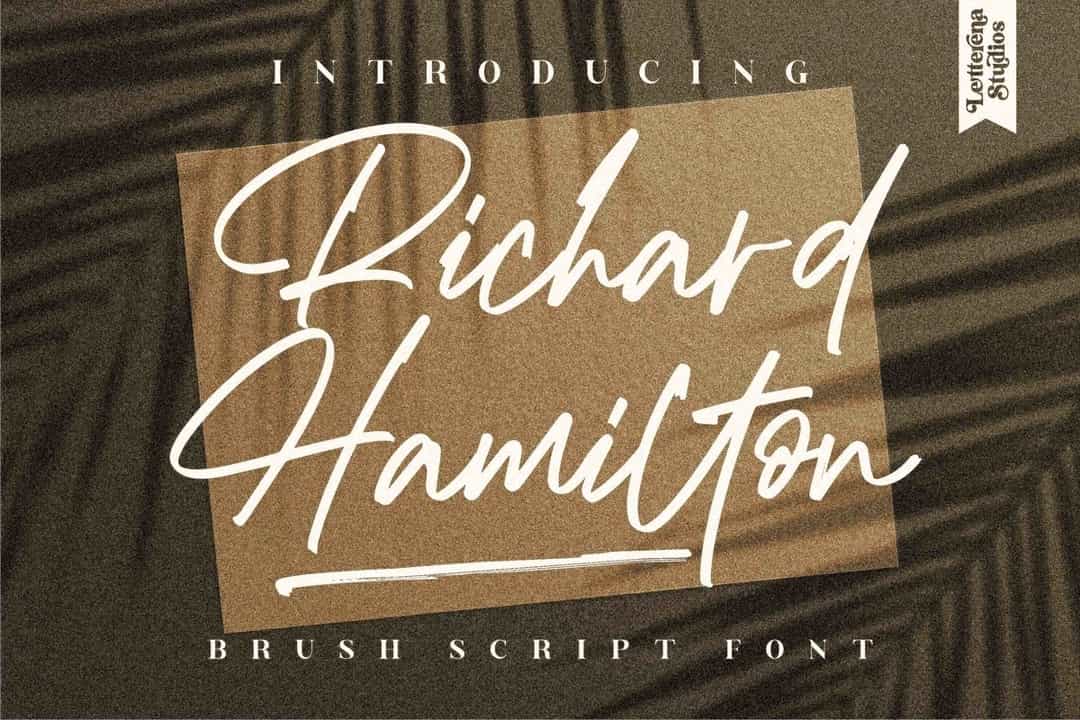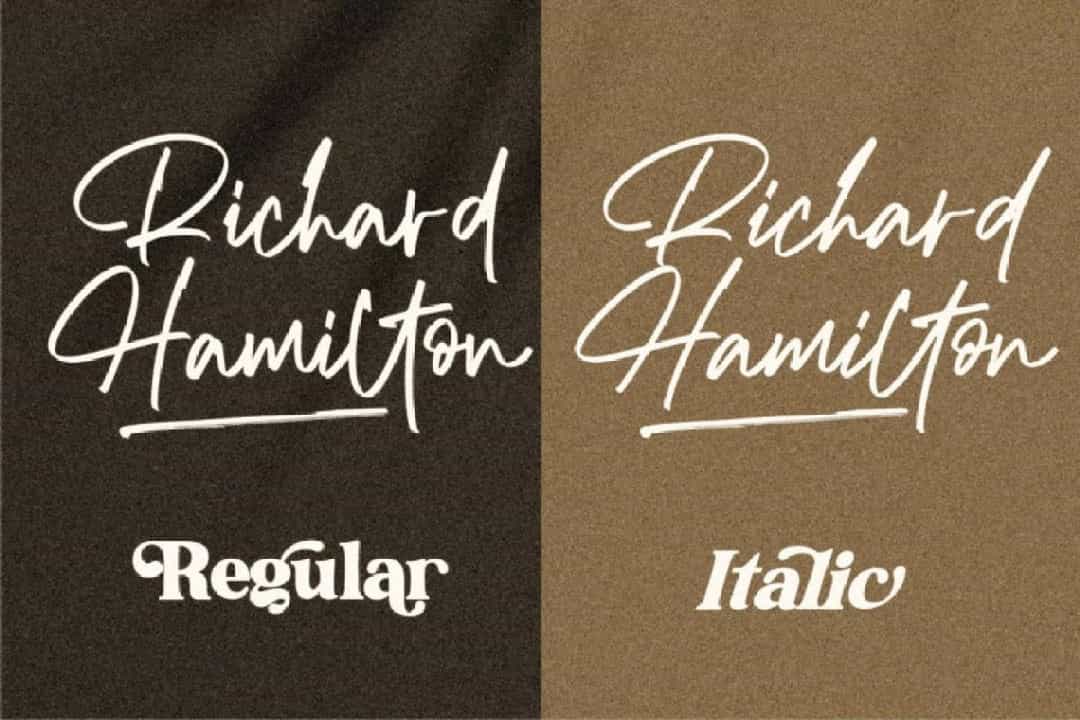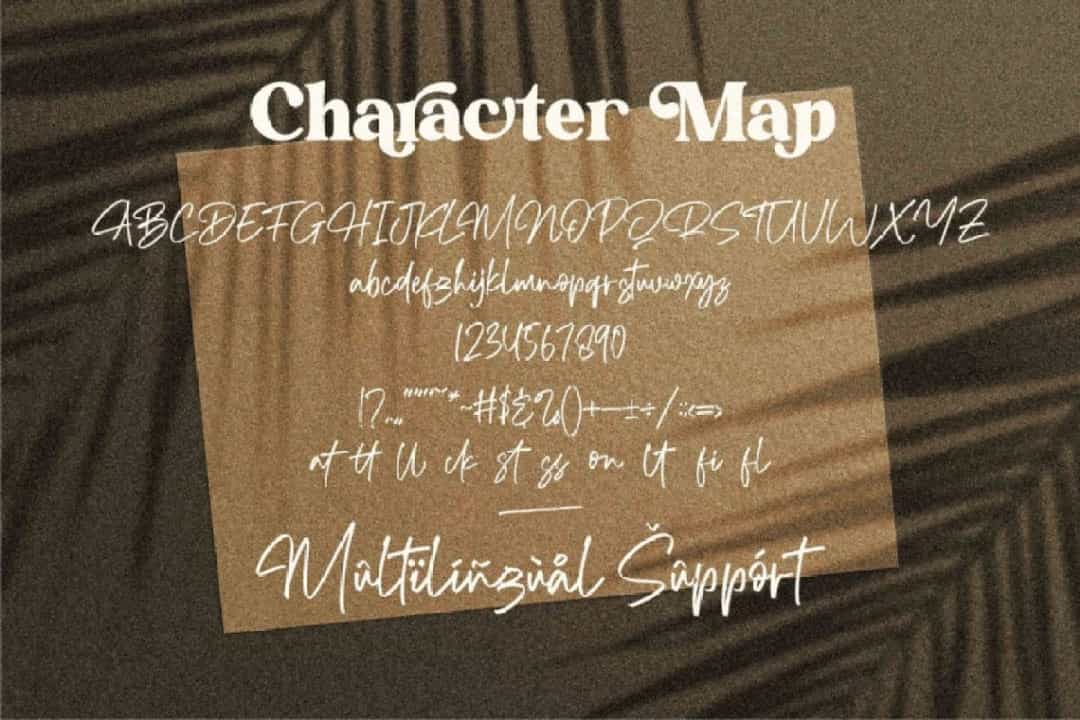
Richard Hamilton – Brush Signature Handwritten Font from Letterena is a stylised cursive font that can be applied in various fields of designing including logos, branding, home items packaging, mugs, posters, bags for shopping bags, t-shirts, books name cards, greeting cards, invitation cards, labels, watermark, photography, special occasions Photography, special events, special projects that require the personal touch of the signature such as brush strokes.